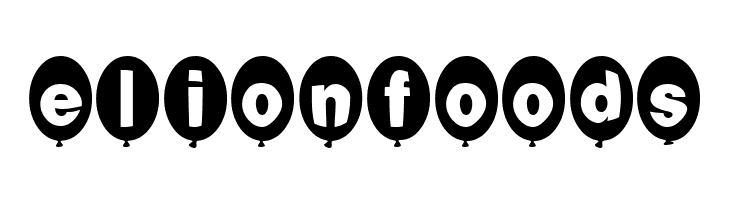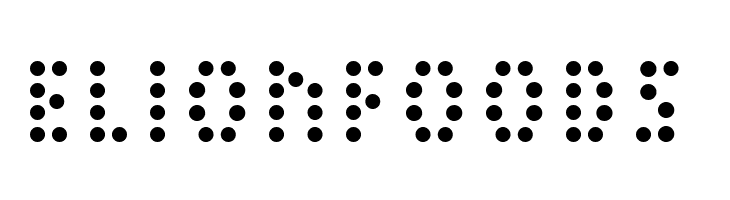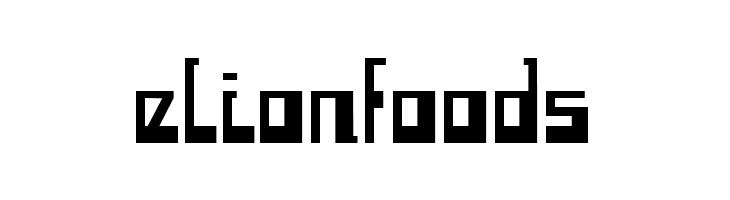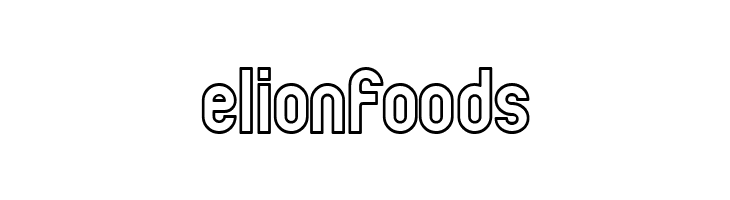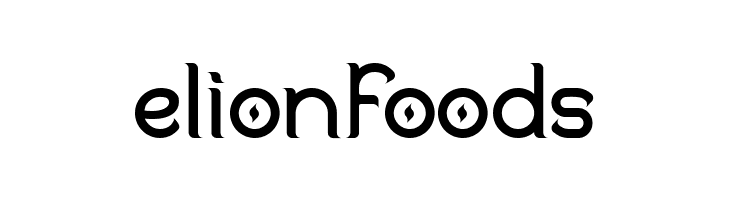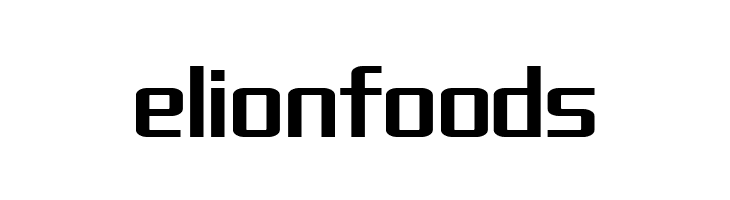
A playful font with characters inside balloon shapes, perfect for festive designs.
A dot-based, modern font with a digital and futuristic aesthetic.
A bold, geometric font with a futuristic and digital aesthetic.
A modern outline font with bold, geometric shapes and clean lines.
A modern, geometric font with rounded edges and a playful style.
A bold, geometric font with a modern, angular design.